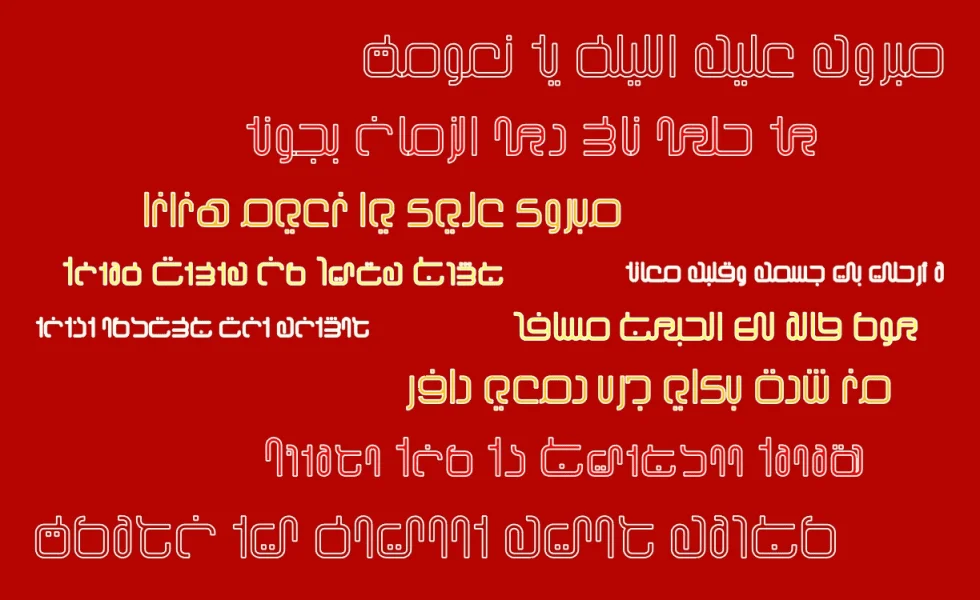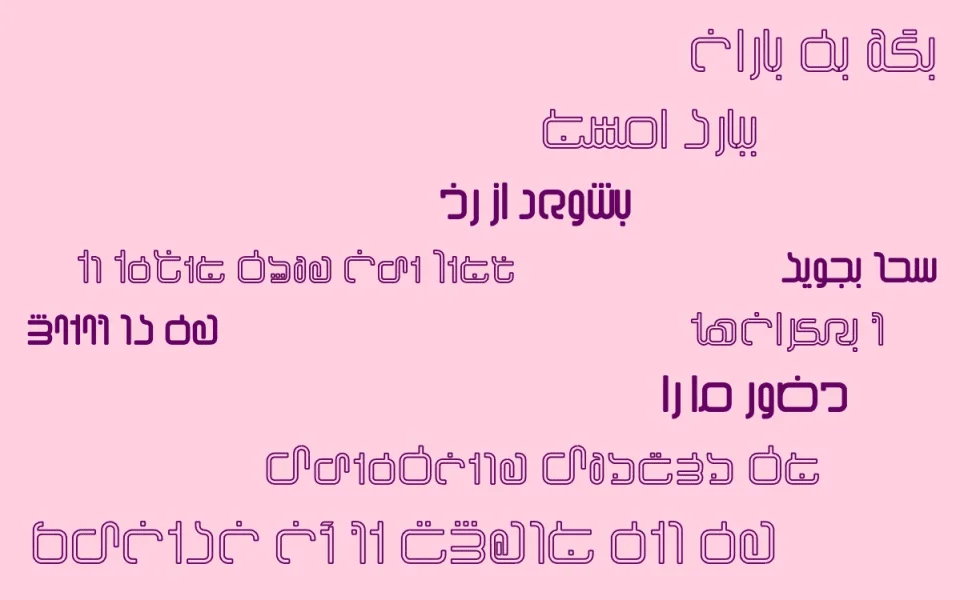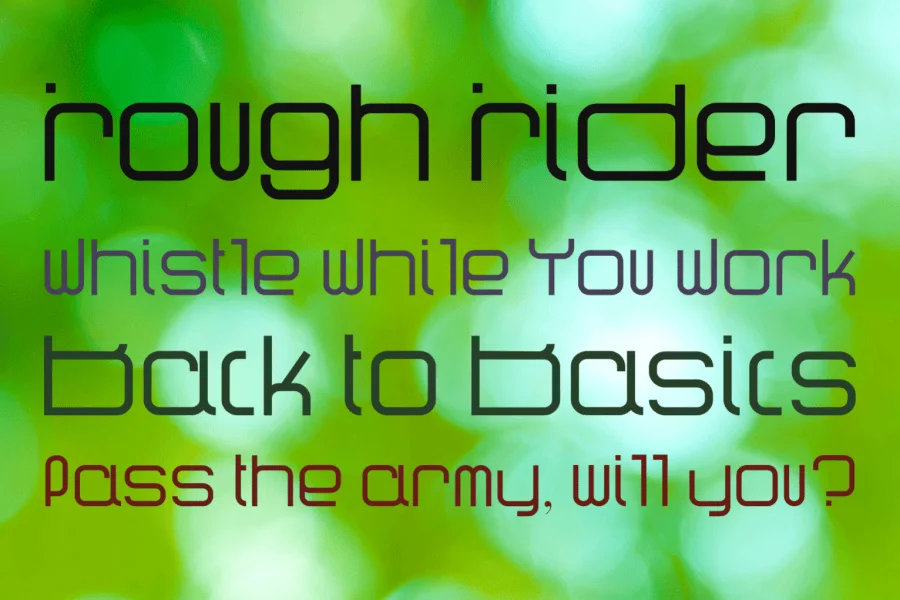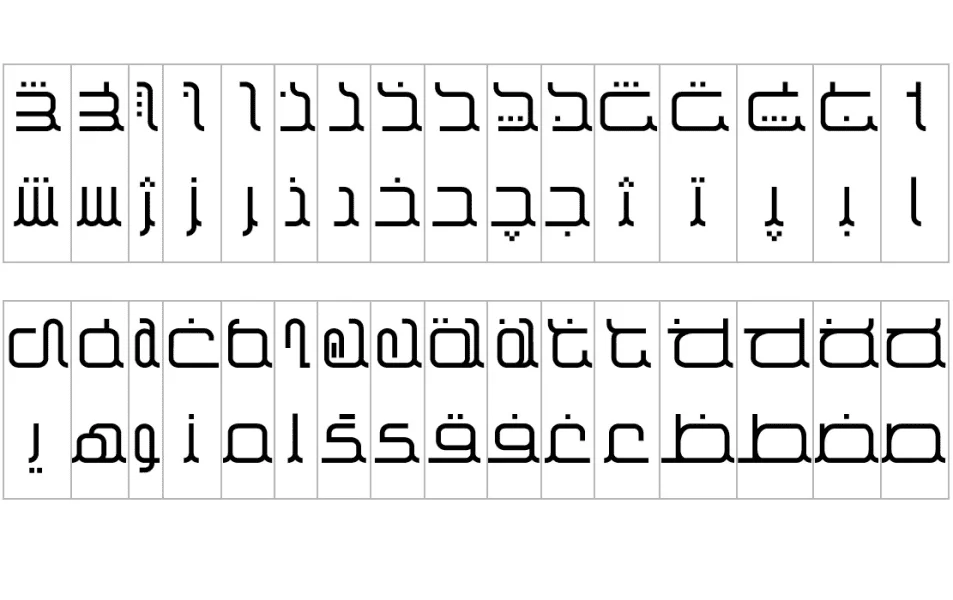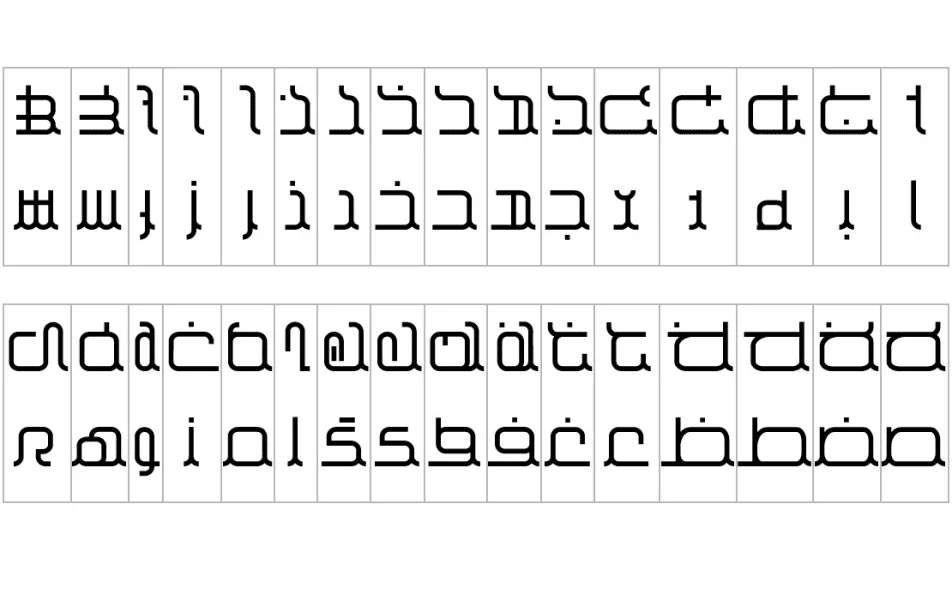
Narm (نرم, Soft) constitutes the complementary font family to narma, encompassing five distinct styles. The initial two styles, narm regular and narm LP, adhere to the traditional Arabic conjoint font styles. Furthermore, the configuration of the capital (isolated) letters has been adjusted to engender a more consistent visual appeal.
The narm LP (Less Point) denotes the only dot-reduced style in this font family, wherein glyphs containing two or more dots are substituted with new dotless shapes.
The narm MC (Mixed Case) mimics Latin fonts, allowing typists to select between lowercase (Initial) and uppercase (Isolated) letters using a software Caps Lock key. This software Caps Lock feature can be activated or deactivated by entering the Tatweel letter. more…
The last two styles are Small Caps (narm SC) and All Caps (narm AC) versions of this font family.